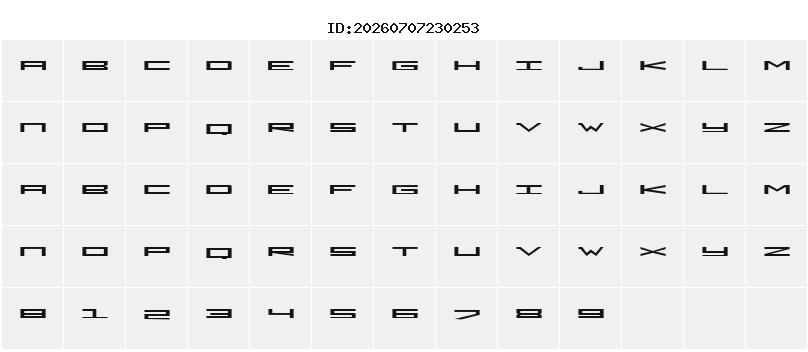
Dark Empire Preview
• Font Name: Dark Empire
• Full Font Name: Dark Empire
About Dark Empire.ttf
Dark Empire.ttf is a modern, elegant sans-serif font designed for ultimate readability and visual harmony. Perfect for branding, headlines, web design, and print materials.